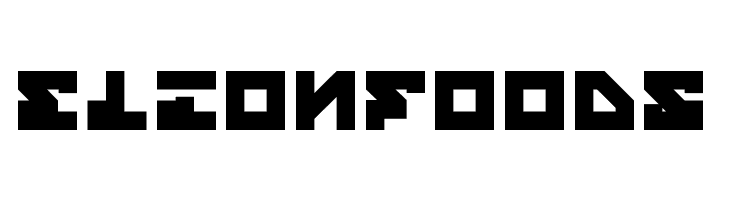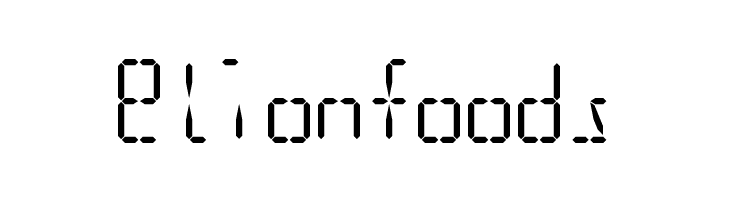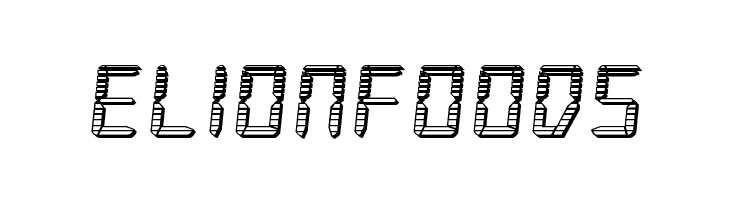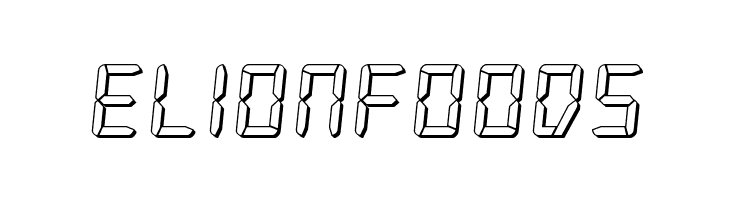
A futuristic, alien-inspired font with sharp, angular lines and a unique, edgy appearance.
A bold, angular font with a futuristic, space-age design.
A futuristic, segmented line font with a digital, high-tech appearance.
A futuristic, bold italic font with geometric, enclosed characters.
A bold, geometric font with a futuristic and blocky design.
A bold, angular font with a dynamic, futuristic style.
A bold, geometric font with characters enclosed in squares, offering a futuristic and digital look.
A bold, geometric font with a futuristic and modern design.
A bold, futuristic outline font with a sci-fi aesthetic.
A bold, geometric font with a retro-futuristic style.
A bold, futuristic font with sharp, angular design elements.
A modern, geometric font with a futuristic and structured design.
A bold, futuristic font with angular, geometric letterforms.
A bold, geometric font with a retro-futuristic style and layered outlines.
A bold, futuristic font with geometric shapes and a sci-fi aesthetic.
A bold, italicized font with a futuristic and angular design.
A bold, futuristic font with horizontal line patterns and geometric shapes.
A bold, italicized font with futuristic, striped letterforms.
A bold, italic, futuristic font with sharp angles and a dynamic style.